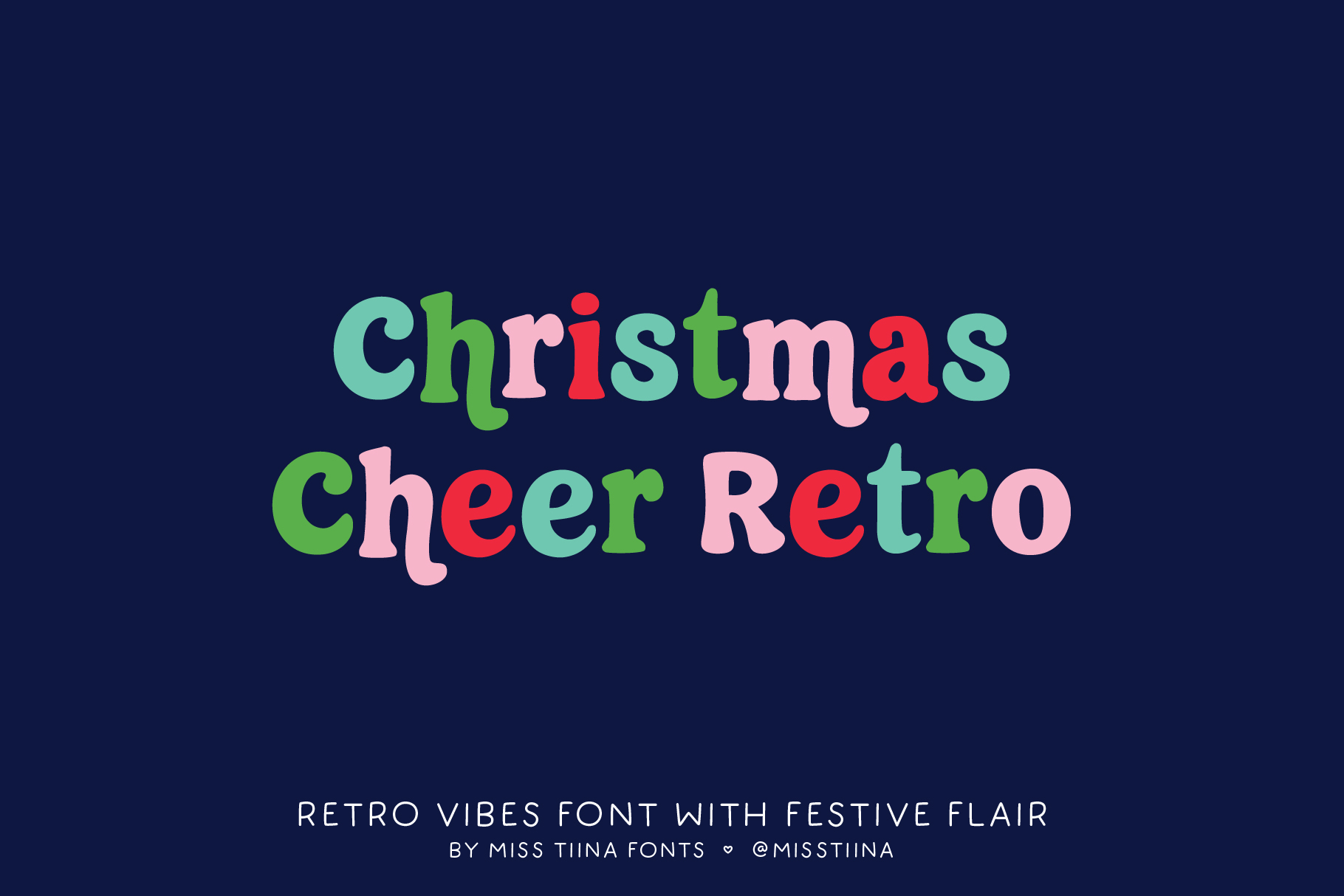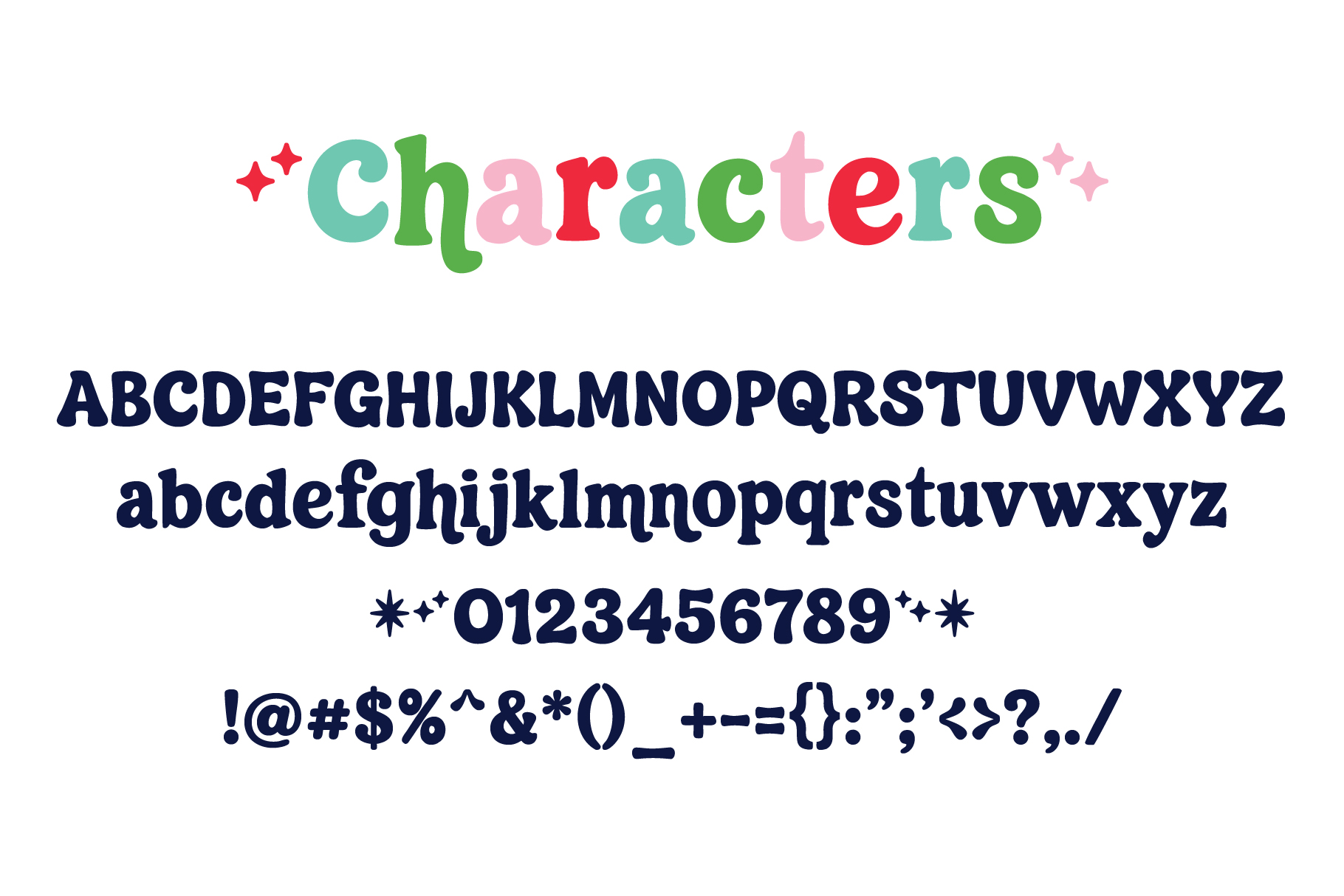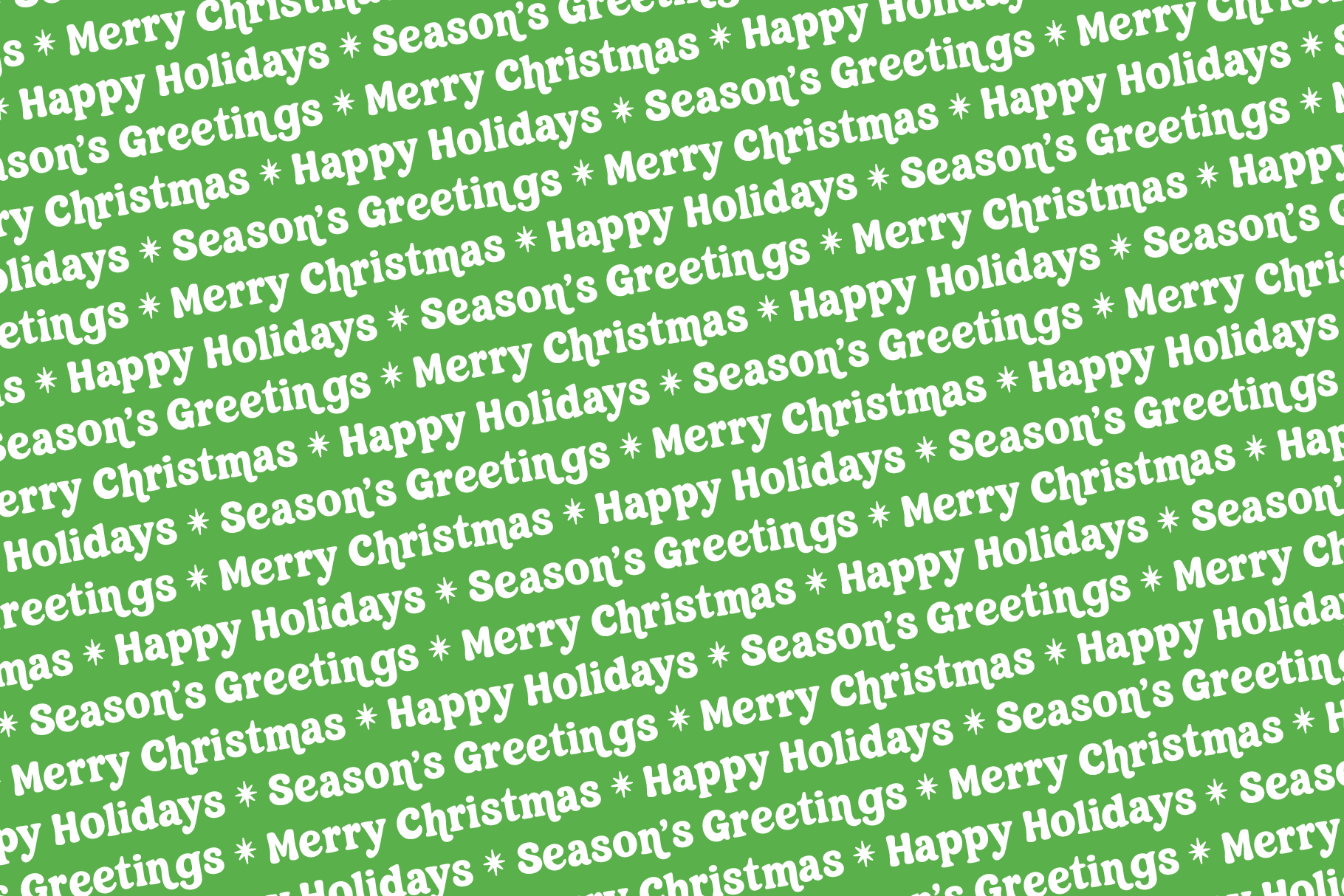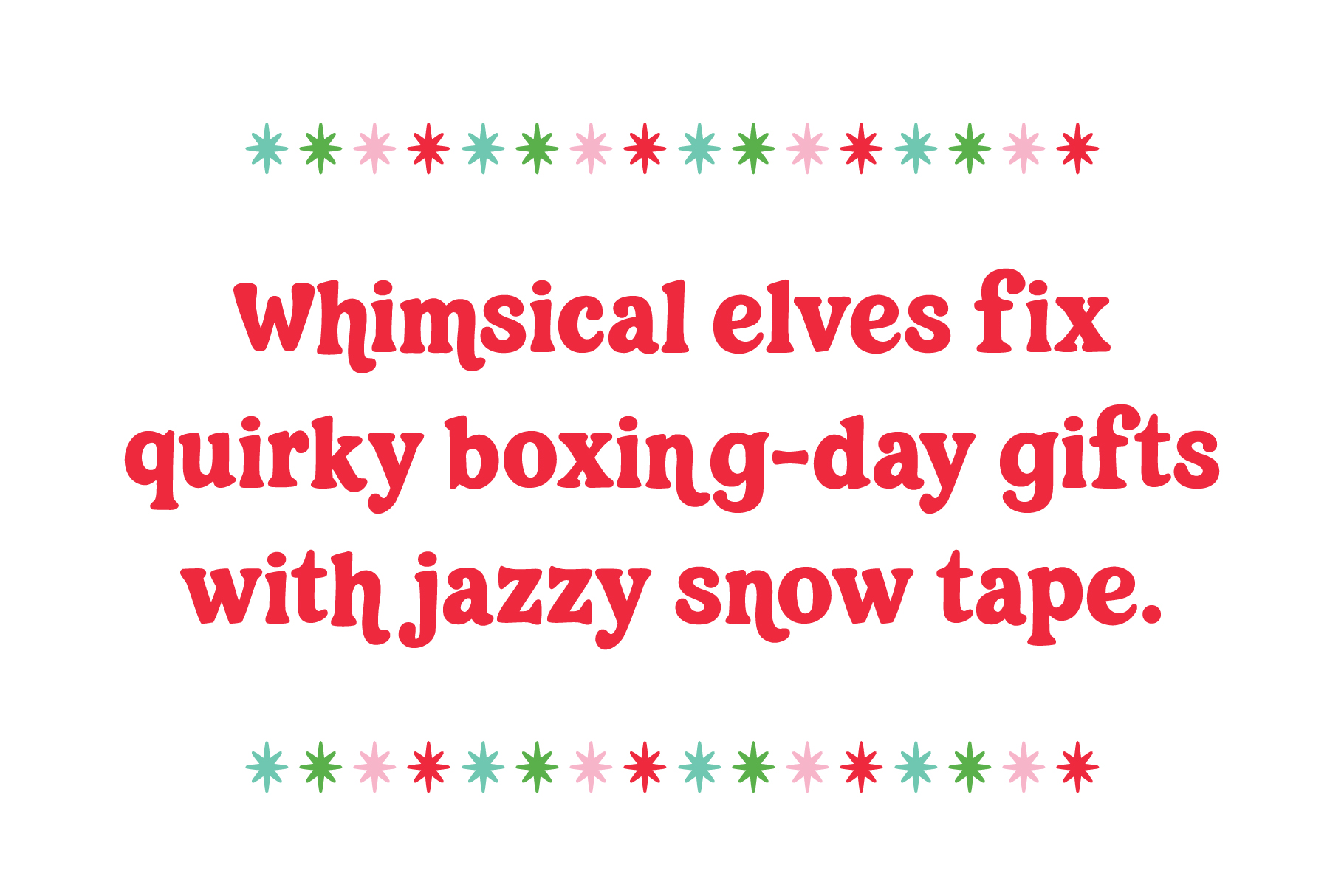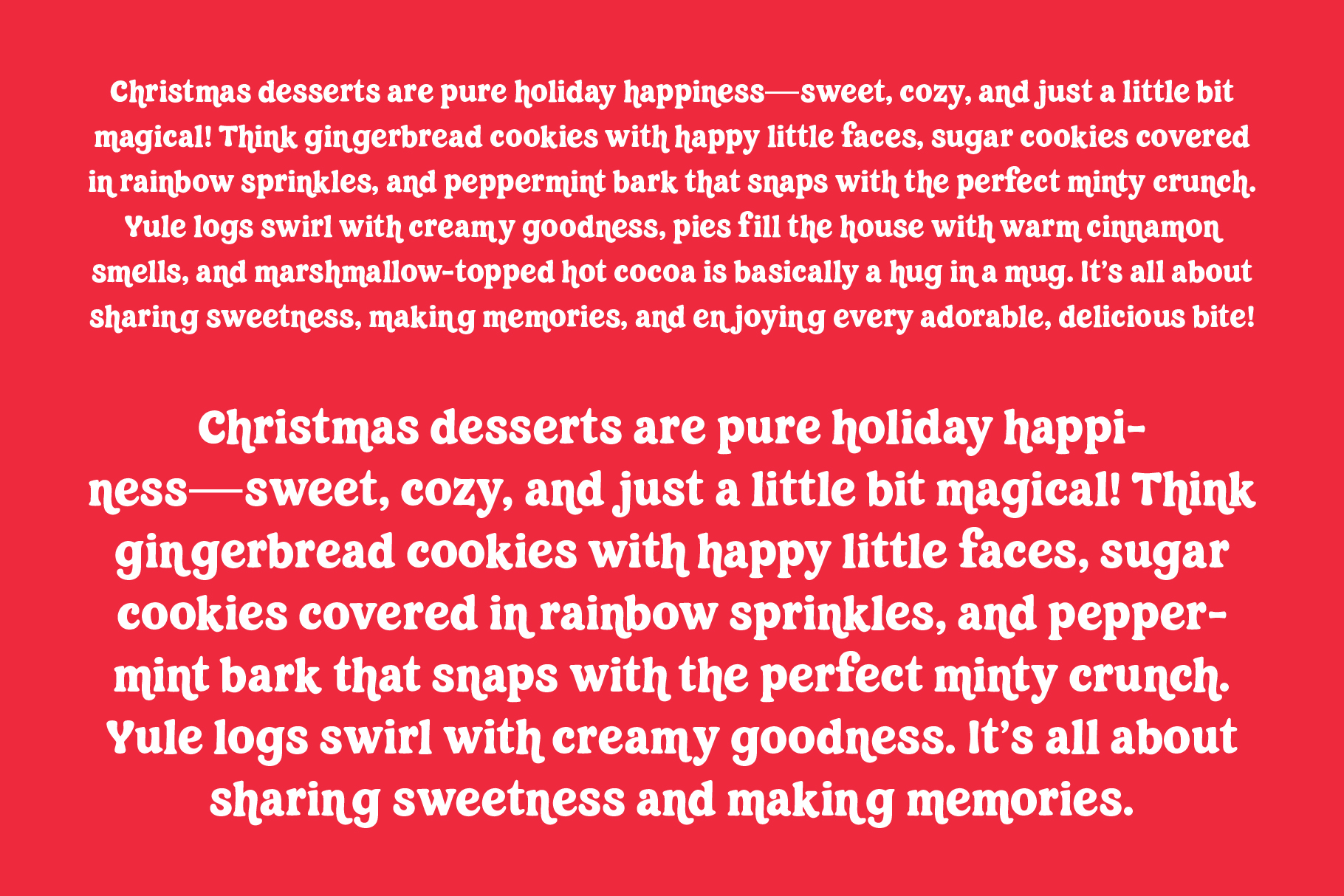
MTF Christmas Cheer Retro
✨ Bring nostalgic Christmas magic to your designs! This bold retro serif is cozy, charming, and perfect for cards, crafts, planners, and all your holiday projects. 🎄